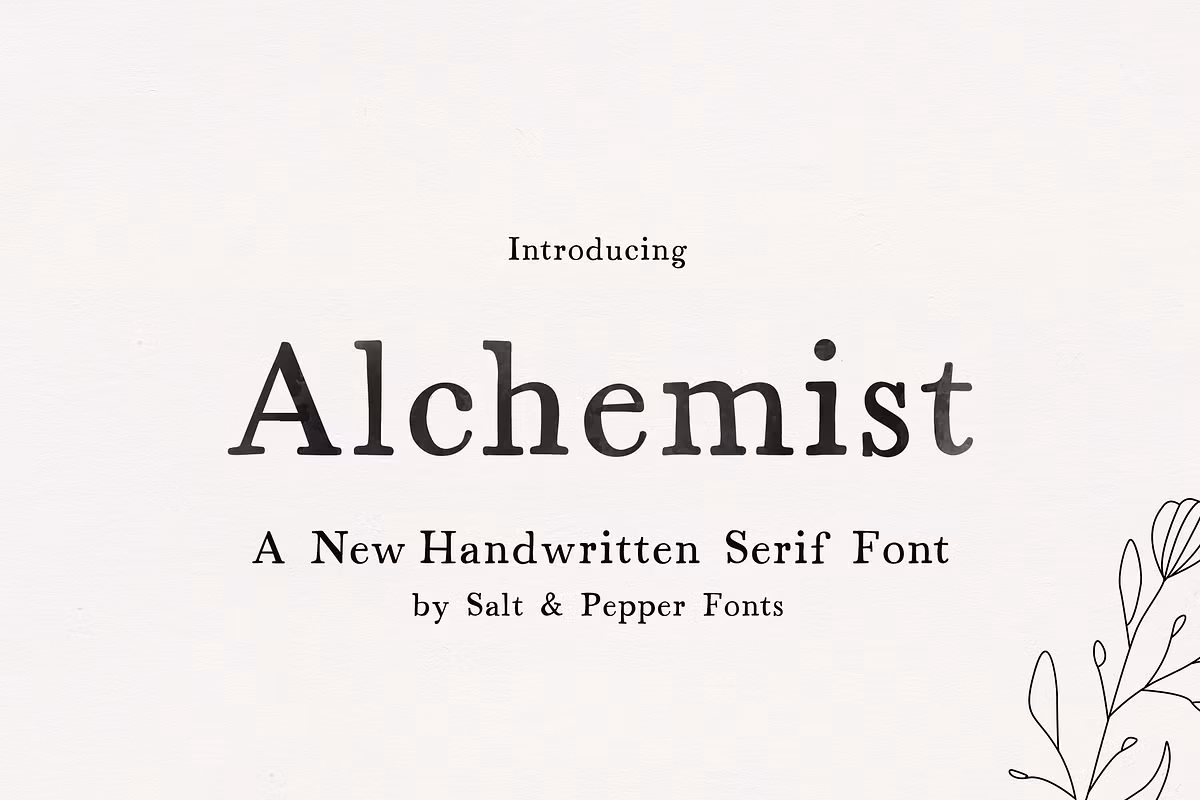
Alchemist Serif Font Free Download
Alchemist Serif Font Free Download is a magical blend of classic elegance and modern precision. With its sharp serifs and subtle curves, this typeface brings a touch of mystery and refinement to any design. Perfect for book covers, branding, luxury packaging, editorial layouts, and elegant website headers, Alchemist is designed to cast a visual spell on your audience.
The font’s balanced contrast and stylish geometry make it incredibly versatile—whether you're aiming for a high-end, minimalist look or a more ornate, mystical aesthetic. It performs beautifully in both large headlines and small detail text, giving your project depth and distinction.